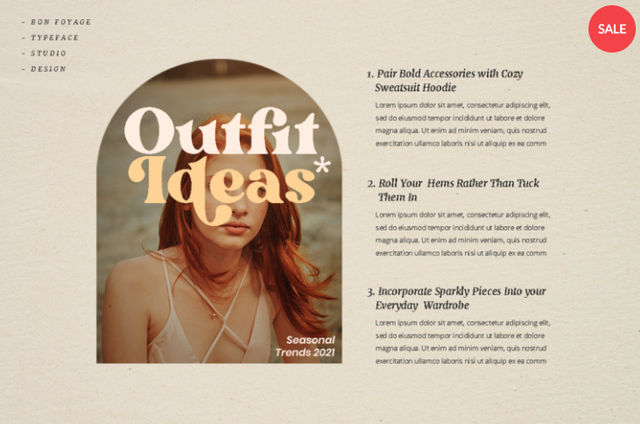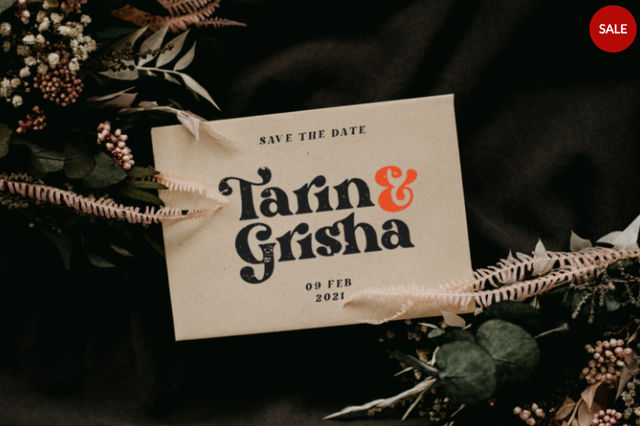
Bright Retro Font, a Playful Twist to Your Retro Design
There are plenty of retro fonts with unique aesthetics online, which can sometimes be confusing to choose from. However, if you’re looking for one that stands out as a vibrant and playful font, then Bright Retro Font is the answer.
With three distinctive styles, including regular, italic, and outline, this font captures the essence of vibrant 60s-70s styles and adds a contemporary touch that enhances its versatility.
The Inspiration behind Bright Retro Font
This font is inspired by the groovy and playful characteristics of the 60s and 70s. It comes with bold strokes, curvy letterforms, and whimsical details. These shapes will remind you of the iconic psychedelic art and vibrant colors. Therefore, this font will be perfect for an energetic and playful design project.
Characters
There are plenty of retro fonts available anywhere. However, what makes Bright Retro Font distinctive is its balance between nostalgia and modernity. You can easily use this font in a contemporary design while adding a touch of nostalgia. This combination is perfect if you’re looking into creating a design with a specific era in mind but without making it look too outdated.
This font has 50 unique alternates and ligatures to help you create a unique vintage look. It also comes with 3 different design styles that allow you to experiment with the font combination.
Design Style
This font comes with 3 design styles; they are regular, italic, and outline. With these variations, you will have more freedom when designing your text.
1. Regular
The regular style offers a cheerful and approachable feeling, making it perfect for any fun-themed design. The smooth curves and rounded edges make this style look casual yet sophisticated.
2. Italic
The italic style adds a dynamic and energetic vibe, making it perfect for a design project that needs liveliness. Bright Retro Font in italic is ideal for titles, headings, and other display purposes.
3. Outline
Last but not least is the outline style, which combines a bold look yet has an open and airy vibe to it.  This style is excellent for creating a visual impact; therefore, it is an effective font for creating eye-catching headlines or poster designs.
Usage
Bright Retro Font is very versatile and can be applied to various design projects. These are some examples of using this groovy and stylish retro font.
1. Branding and logo design
If your brand’s identity evokes nostalgia and a fun and loving spirit, then this font is an excellent choice for branding and logo design. This font has distinctive styles that offer flexibility. With this flexibility, the designer can experiment with various tones until they find the perfect style for their brand.
2. Print materials
The chunky shape makes this font easy to read on printed materials. The charming retro style is visually appealing for brochures, posters, flyers, and many more. Despite the playful style, it is very legible to ensure your audience can read the text clearly and easily.
3. Web design
You need a touch of personality on your web design to make it stand out among your competitors. Bright Retro Font is highly readable, making it a perfect body text. Its bold and unique styles are also great as a headline as it creates a visually appealing display text.
4. Editorial design
The retro style creates a sense of whimsy without eliminating professionalism, which makes it a good choice for magazines or other editorial layouts. With its style variation, you can experiment with various visual hierarchies to design an aesthetic editorial layout.
How to Use
Of course, you can use this font as it is on your design project. However, to ensure you get the most out of your design style, follow the 3 tips below.
1. Pairing
You can use this Bright Retro Font on its own. However, combining it with different typefaces will help your design make an impact. Don’t hesitate to experiment with various typefaces to create a harmonious and visually appealing typeface combination.
2. Contrast
Contrast is needed to add emphasis to your design. Using different styles strategically creates contrast that can make your design stand out even more. This is especially important if you want to ensure your audience pays more attention to certain parts of the design.
3. Color Palette
Lastly, don’t forget to implement a fun and vibrant color palette. These types of colors will complement the font’s playful and fun nature, enhancing your design’s active theme. For a groovy 60s-70s design, you can add pastel and vivid colors to create a nostalgic design style.
4. Responsiveness